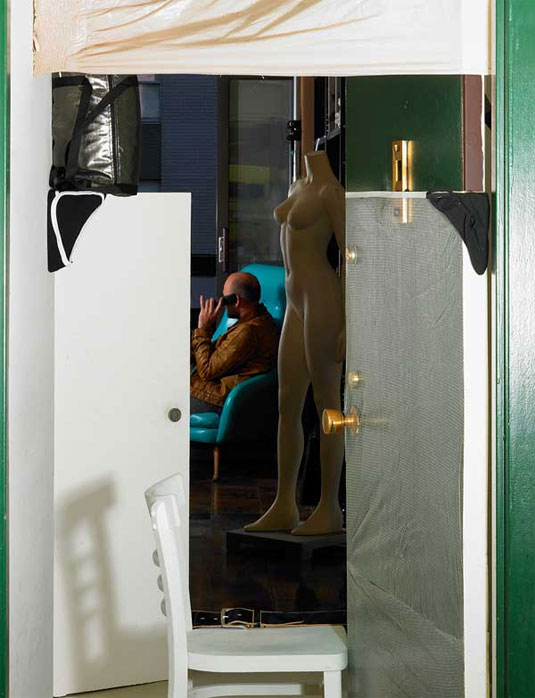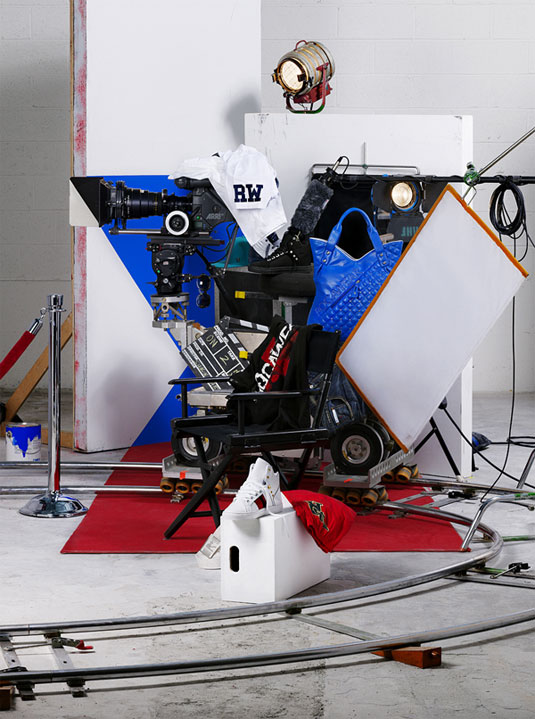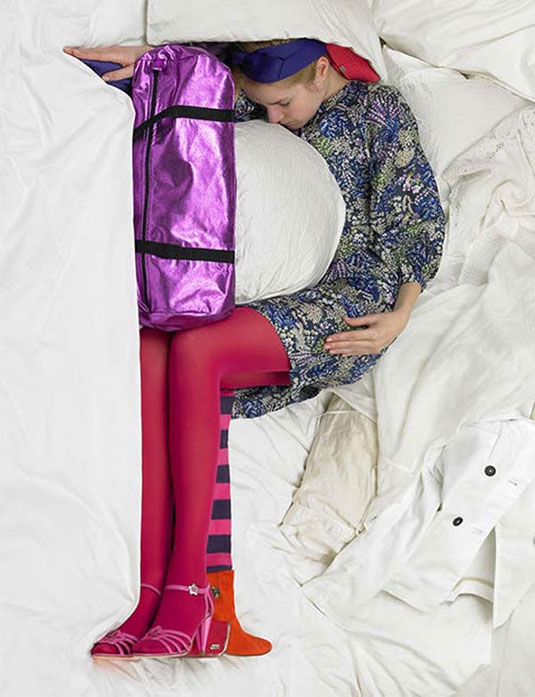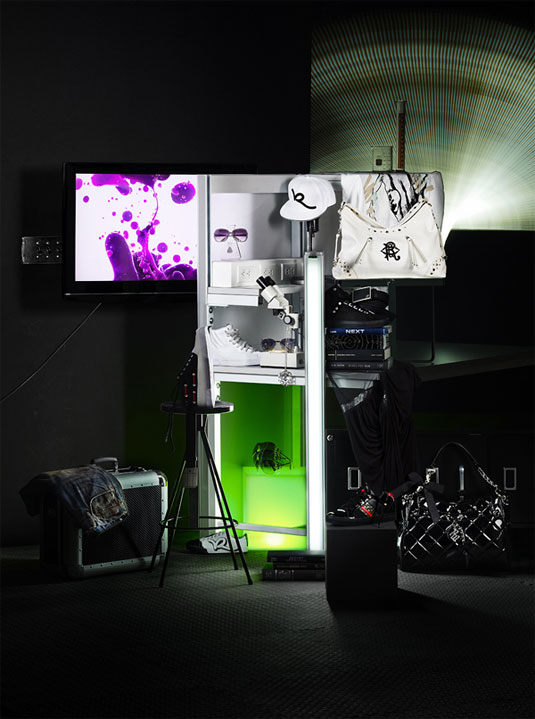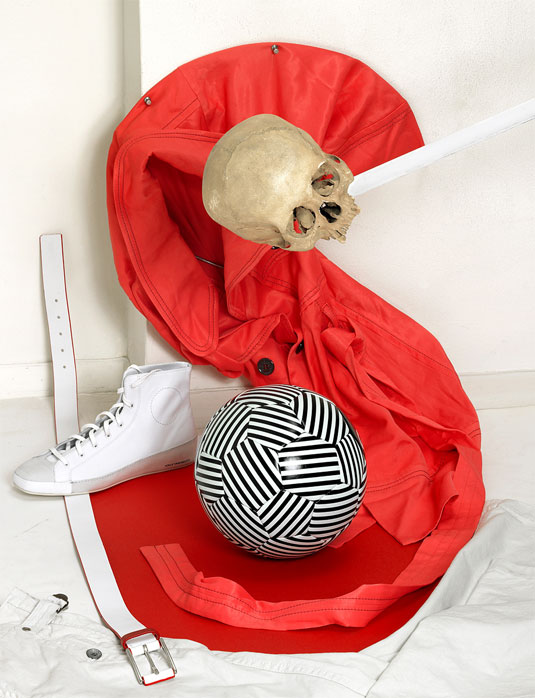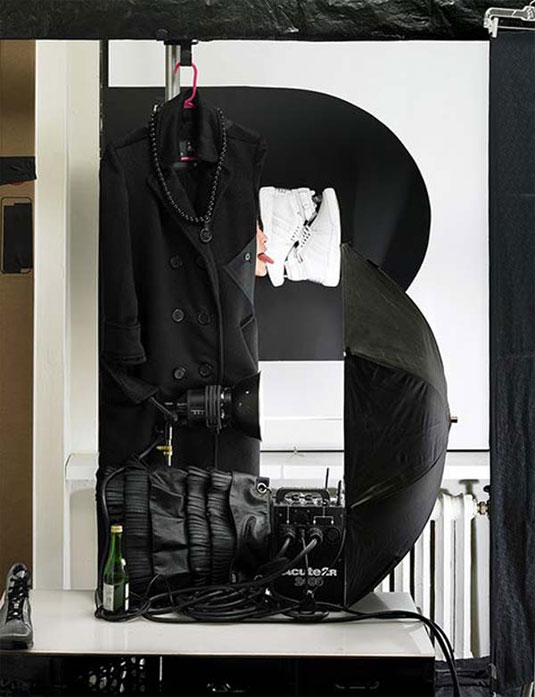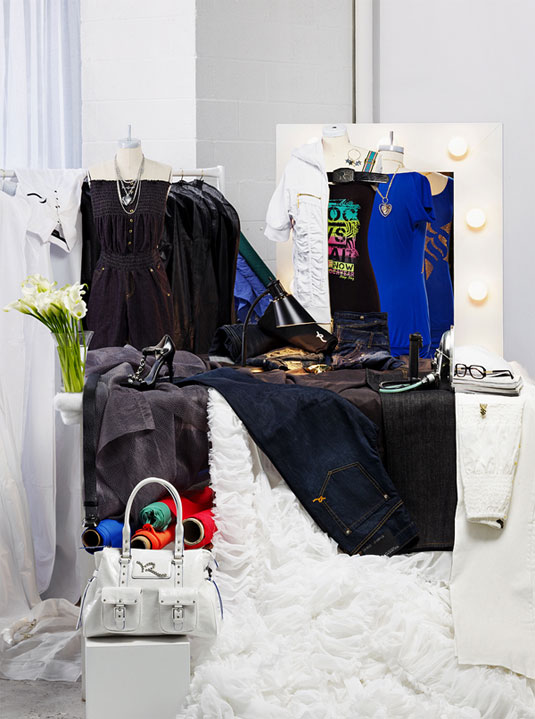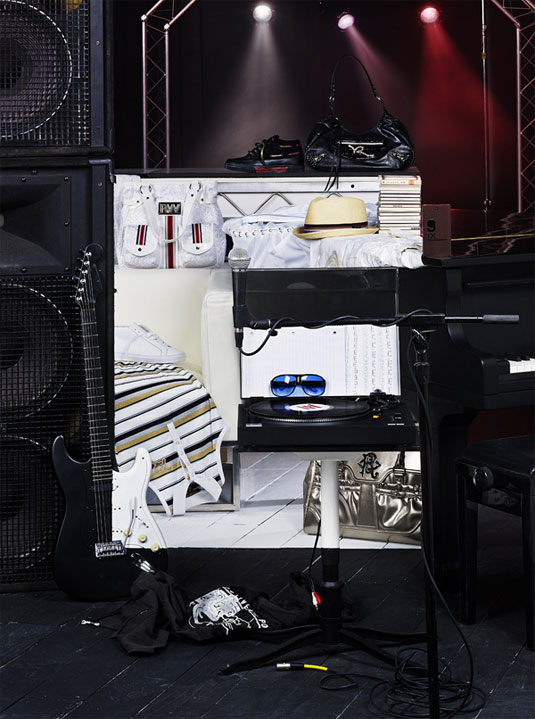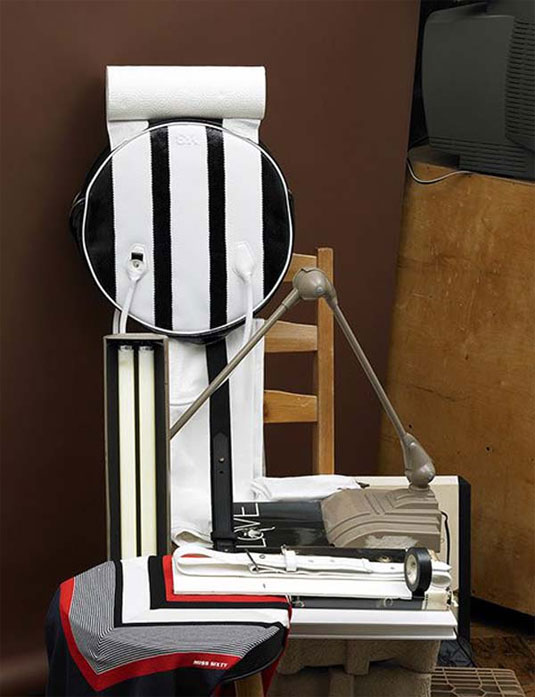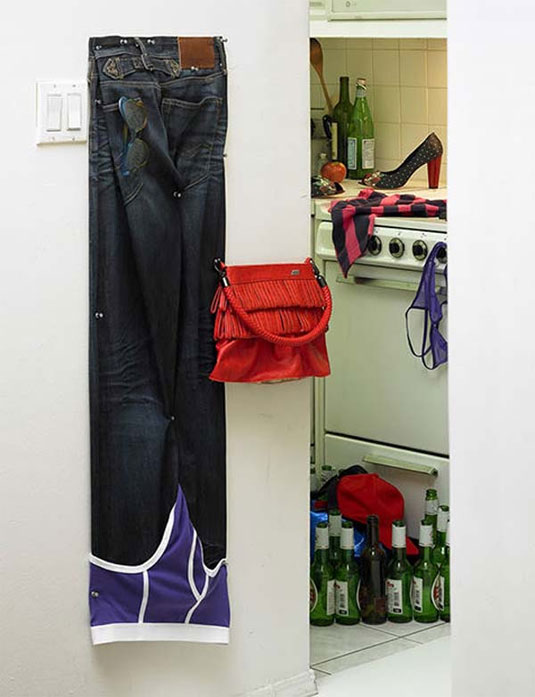
Type created from everyday items
Taking inspiration from the norm and turning every day objects into letters, take a look at this new take on typography.
Creativity is often about looking at every day objects and turning them into something spectacular, whether that be in the form of food art, doodle art or paper art. And here's a great example in this off-the-wall take on lettering.
Created for WAD magazine and Rocawear, the series was crafted by Australian photographer Beli Borsodi, who arranged everyday household items to form letters of the alphabet.
In doing so, he's managed to produce something truly unique that will make us look at our pots, pans, irons and chairs in a whole new light. Taking inspiration from the art of perception, this is a typography series to remember.